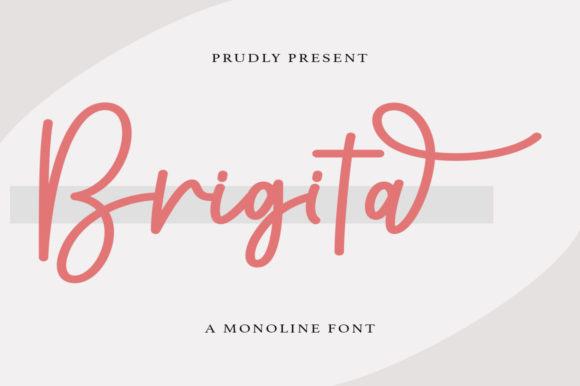
The Designer’s Dream: Bringing Elegance with Brigita Font
I’ll never forget the time I was working on a wedding invitation project, and my client asked for a font that exuded luxury and romance. I scoured the internet, tried countless fonts, but nothing seemed to fit the bill. That was until I stumbled upon Brigita Font. ✨ This beautiful calligraphy typeface has been a game-changer for my design projects, and I’m excited to share its magic with you!
I’ve had the pleasure of working with Brigita Font on several projects, and here’s what I think:
• ✅ Elegant and Romantic: Brigita’s dancing characters add a touch of sophistication to any design.
• ✅ PUA Encoded: Easy access to amazing glyphs and ligatures, making it a breeze to create stunning text.
• ✅ Versatile: Perfect for wedding invitations, luxury branding, and high-end product design.
While Brigita Font is a stunning addition to any design project, there are a few things to keep in mind:
• ⚠️ Character Spacing: Some users may find that the default character spacing is a bit too tight, requiring adjustments for optimal readability.
• 🤔 Glyph Compatibility: Ensure your design software supports OpenType features to take full advantage of Brigita’s glyph library.
The Story Behind Brigita Font
Brigita Font was inspired by traditional calligraphy and the art of hand-lettering. Its creator aimed to craft a font that would evoke the elegance and romance of handwritten script, while also being versatile and easy to use. The result is a stunning typeface that adds a touch of luxury to any design project.
Q: What is PUA encoding, and how does it benefit Brigita Font?
A: PUA (Private Use Area) encoding allows for easy access to additional glyphs and ligatures, making it simple to create stunning text with Brigita Font.
Q: Is Brigita Font suitable for body text?
A: While Brigita Font is stunning, it’s best suited for headlines, titles, and short text passages. Its elegant nature may not be ideal for lengthy body text.